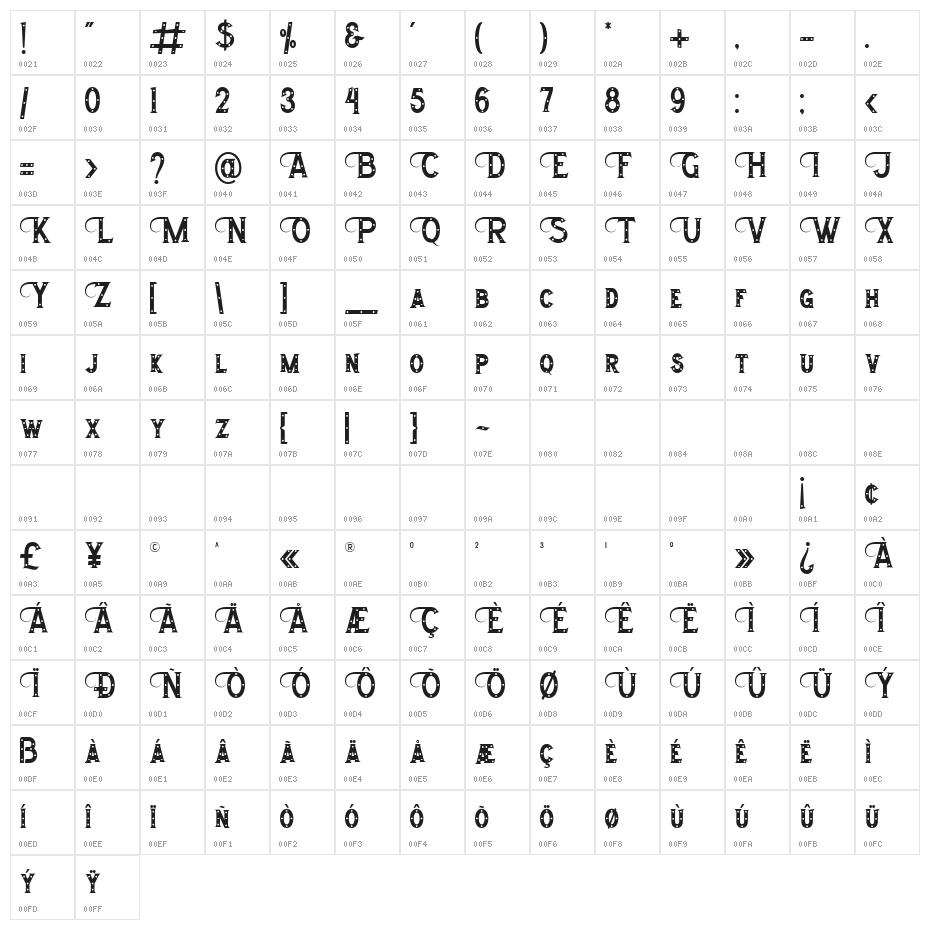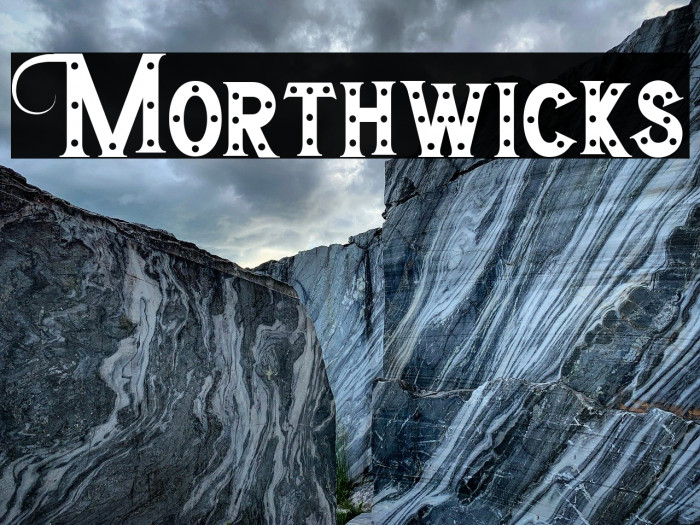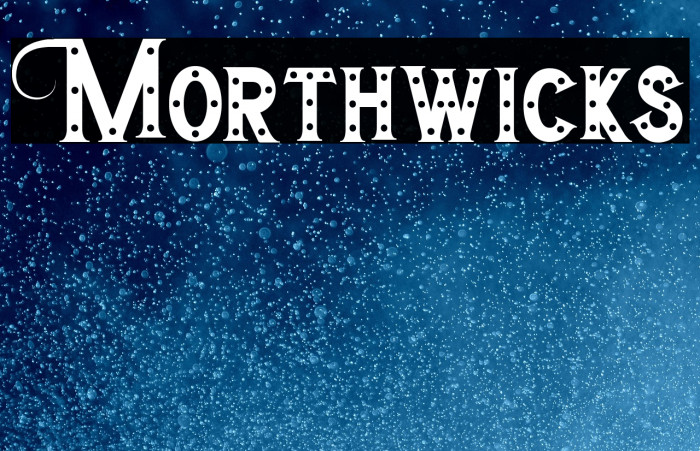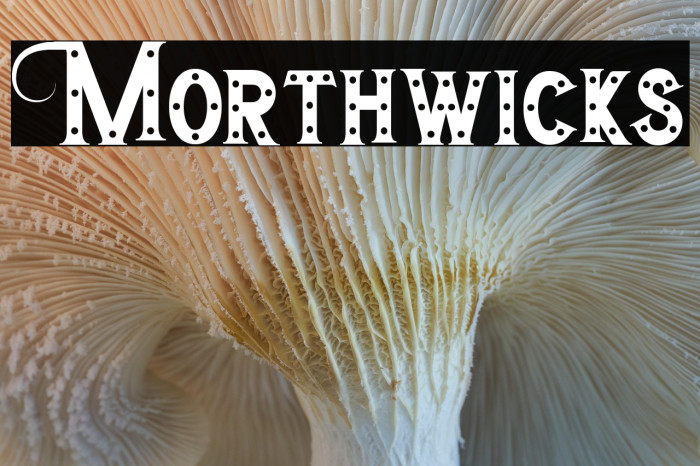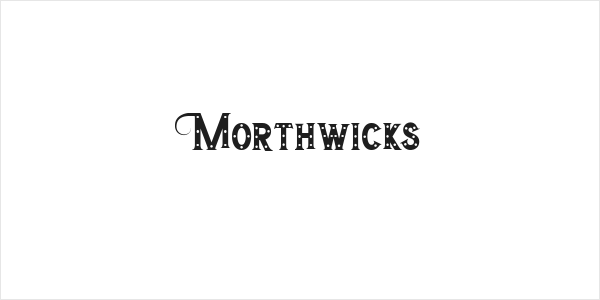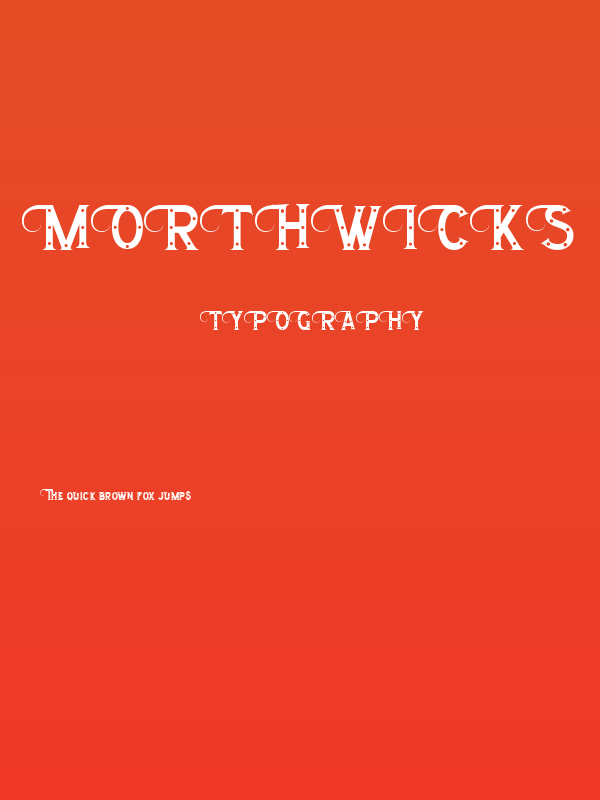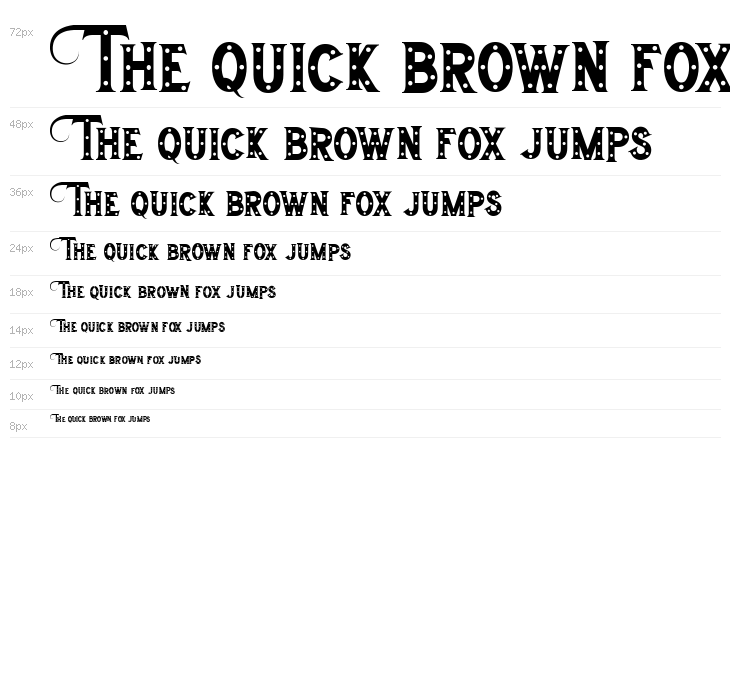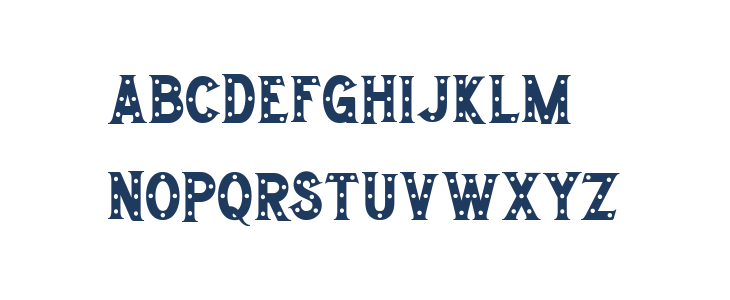
Morthwicks Font
Morthwicks Description
This font features a bold and decorative style with a unique dotted pattern within each character, giving it a playful and eye-catching appearance. The uppercase letters are particularly striking, with a strong presence that makes them ideal for attention-grabbing headlines. The lowercase letters maintain the same decorative elements, ensuring consistency throughout the typeface. The numbers and special characters follow the same design principles, making this font versatile for various uses. Its bold weight and decorative style make it stand out, while the consistent spacing between characters ensures readability.
| Proposed Projects | Ideal for posters, event invitations, logos, and any design requiring a bold, decorative touch. |